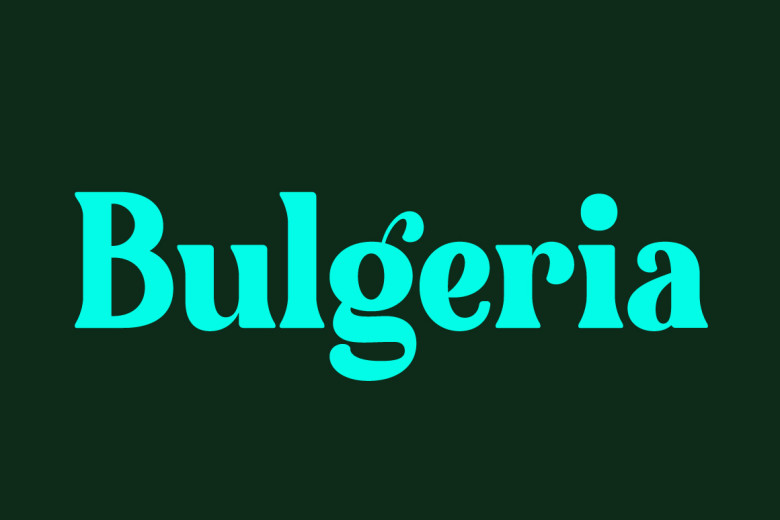
Bulgeria is a bold, stylish and thick lettered serif font. This font is PUA encoded which means you can access all of the glyphs and swashes with ease! This typeface is perfect for an elegant & luxury logo, book or movie title design, fashion brand, magazine, clothes, lettering, quotes, and so much more.
Bulgeria Serif Font